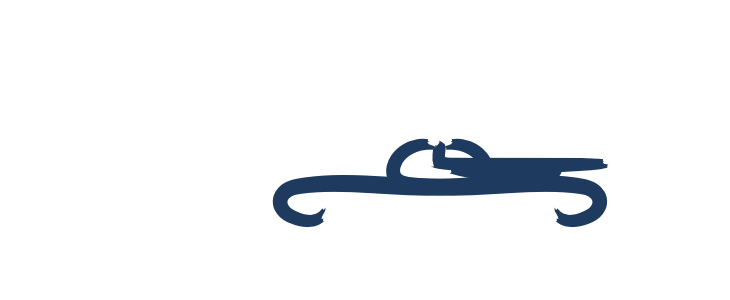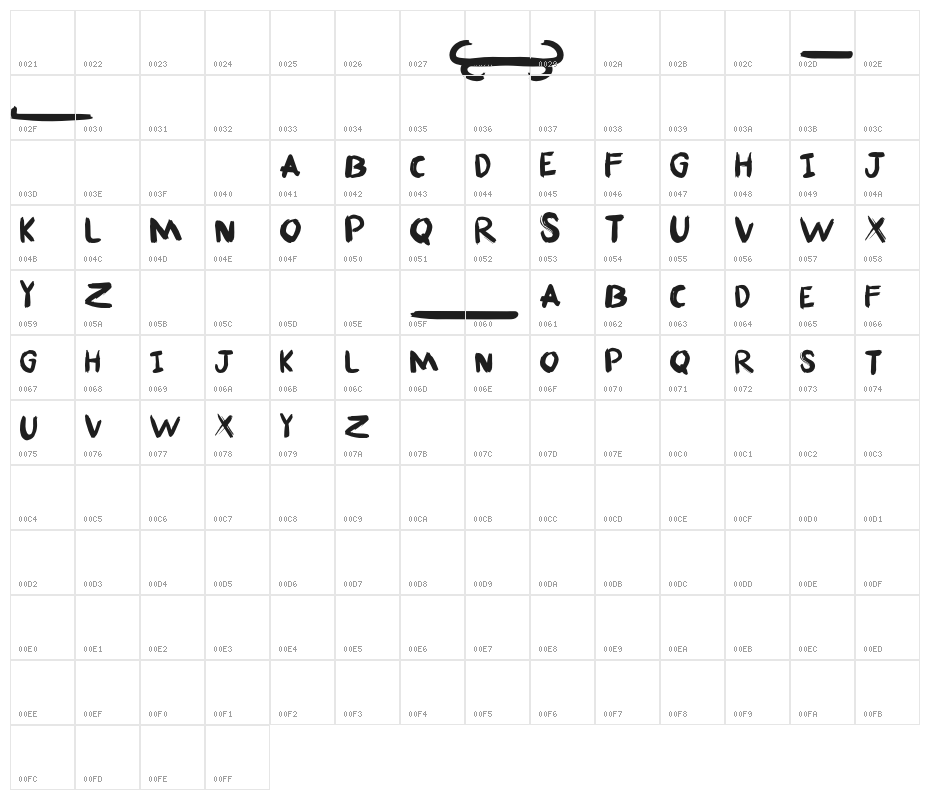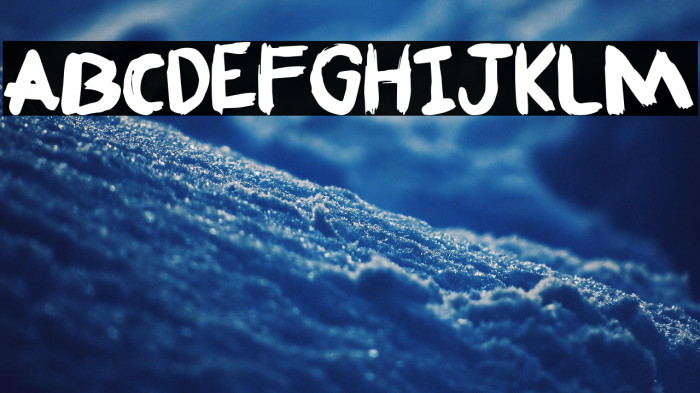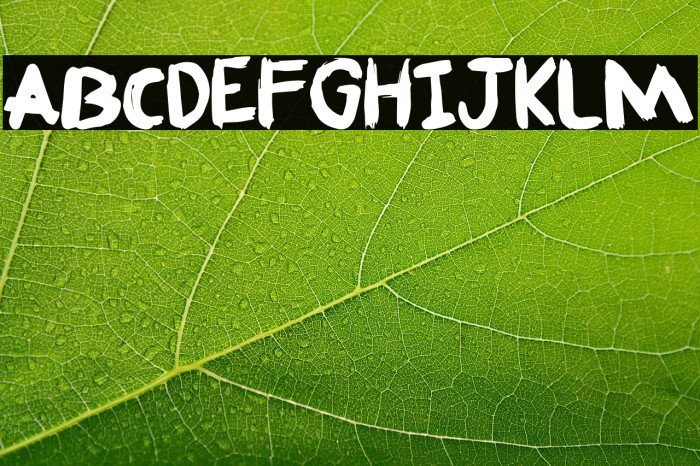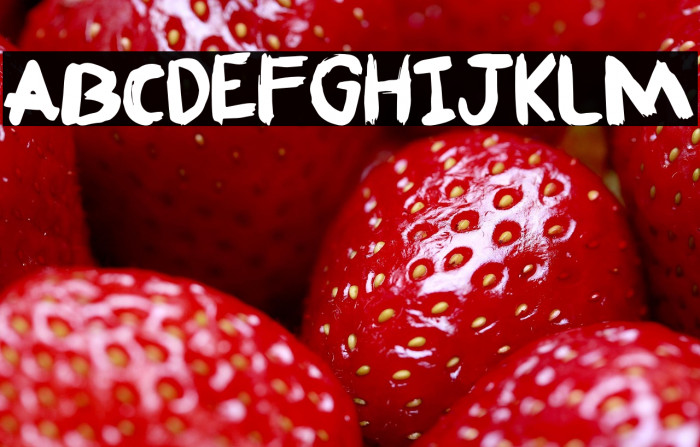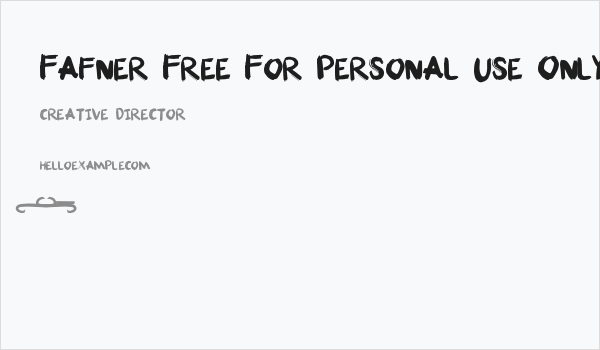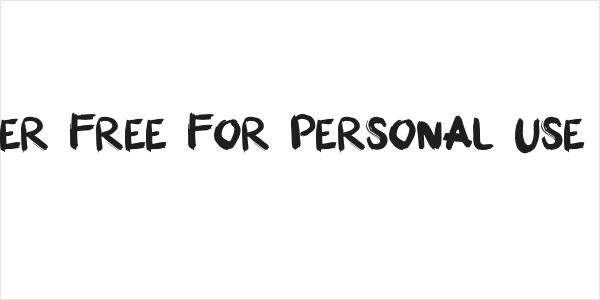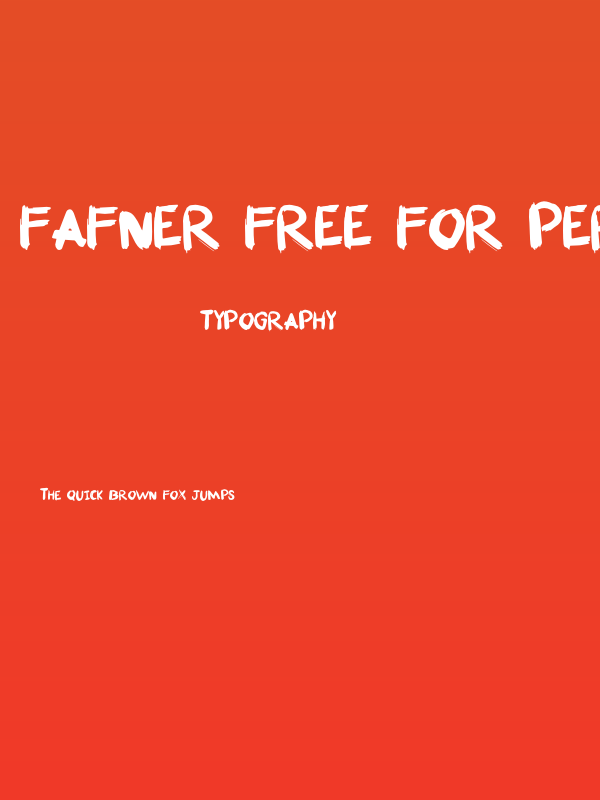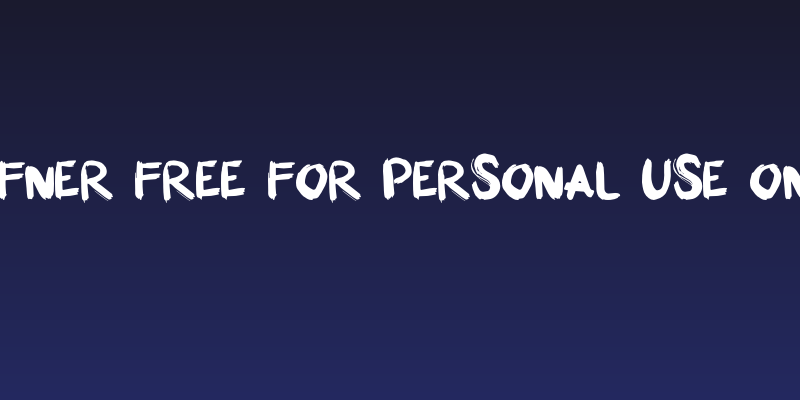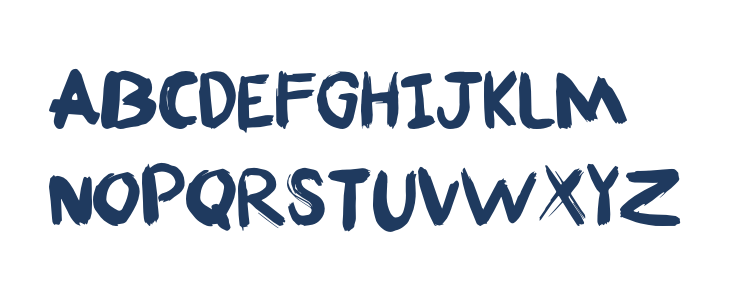
Fafner Free For personal use Only Font
Fafner Free For personal use Only Description
This font features a bold and dynamic brushstroke style, characterized by its thick, uneven lines that give it a hand-painted appearance. The letters have a strong presence, with an energetic and slightly chaotic feel, making it ideal for projects that require a touch of creativity and flair. The uppercase letters are particularly striking, with a sense of movement and spontaneity. The font's unique style is perfect for making a statement, whether in headlines, posters, or artistic designs. Its boldness and irregularity add a sense of authenticity and rawness, capturing attention with its distinct visual impact.
| Use Case | Headlines, Posters, Artistic Designs |
| Proposed Projects | Ideal for artistic posters, creative headlines, and eye-catching branding materials. |